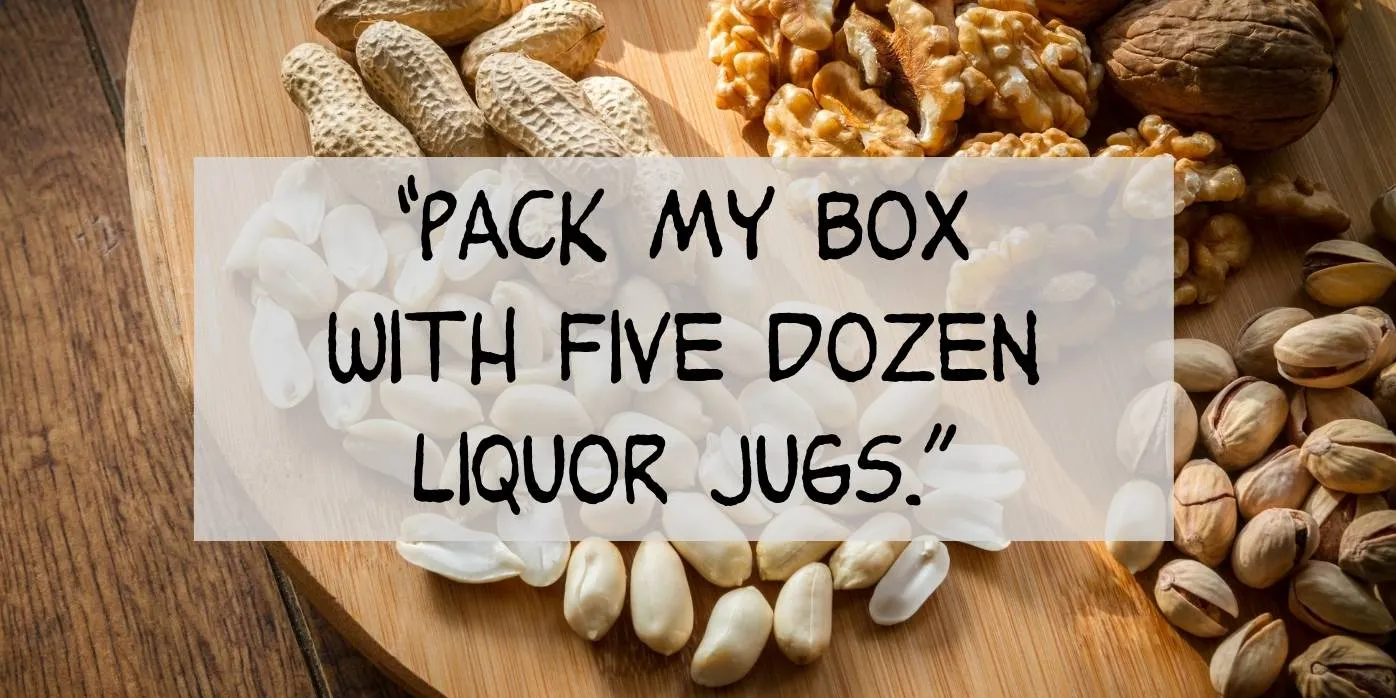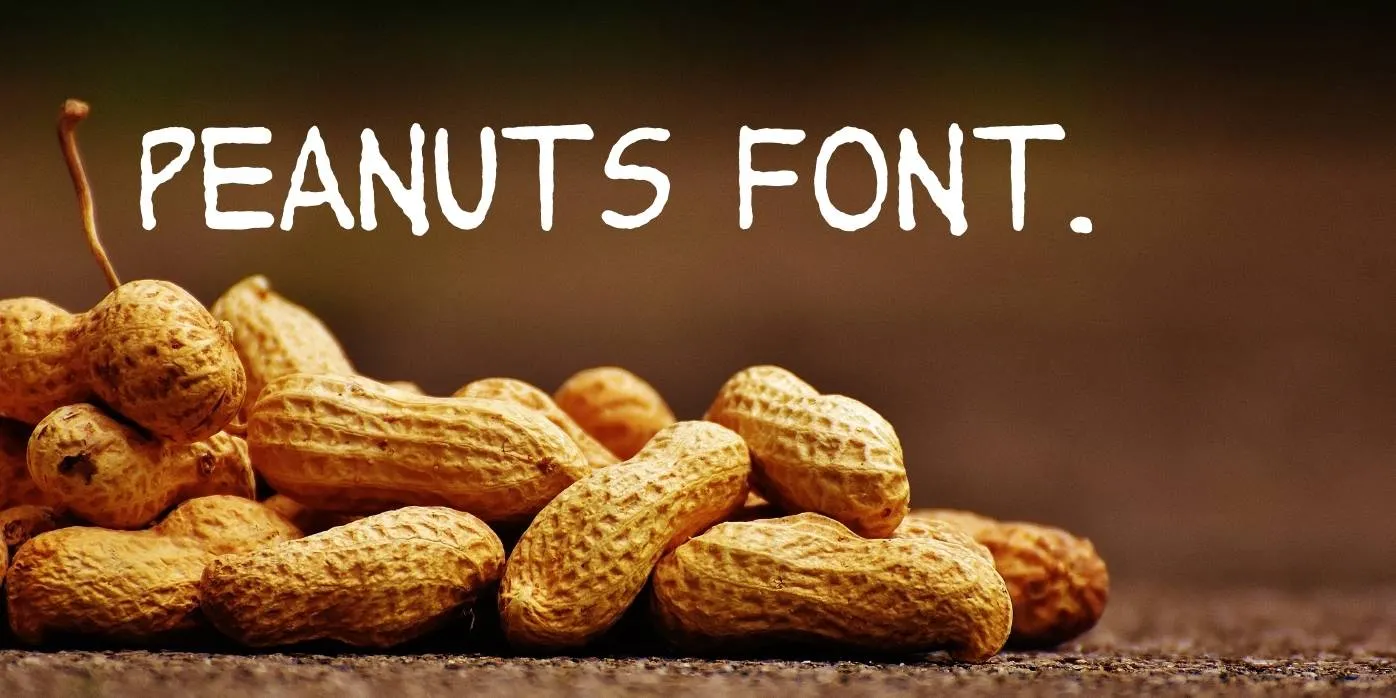
Peanuts Font
Peanuts Font was designed by Phil Castellano in 1972. The font is based on the comic strip that was written and illustrated by Charles Schulz (1922-2000). Peanuts started as a comic strip on October 2, 1950. It was not until 1952 that its popularity began to rise after releasing its first printed book collection.
By the 1960s, peanuts were published in 21 countries and were translated into 19 different languages. Peanut’s characters remain timeless classics and the comic strip is still syndicated in newspapers across the world. Arvo Font is one of the most similar fonts to this typeface. This cute font was based on the lettering in the comic strip, which is known to be simple and clean.